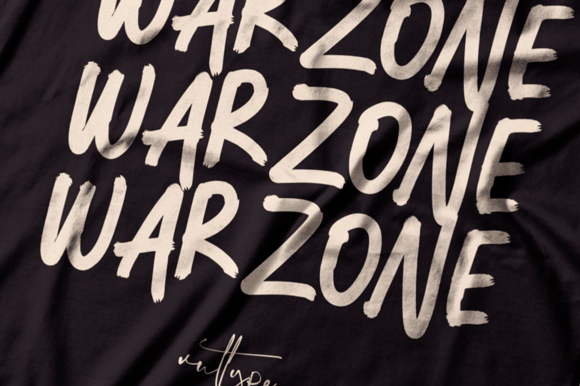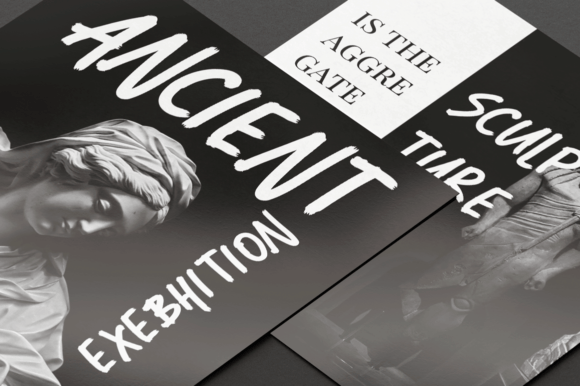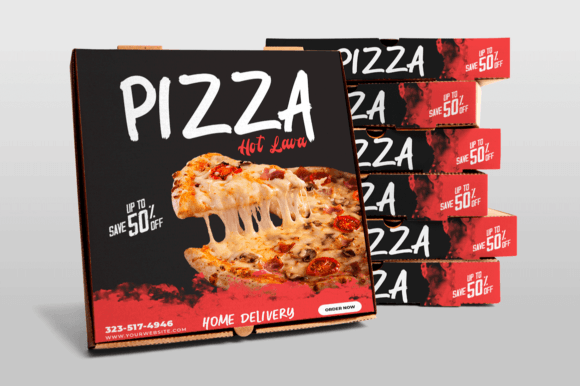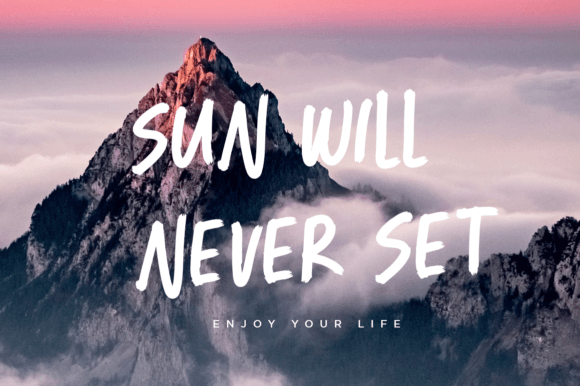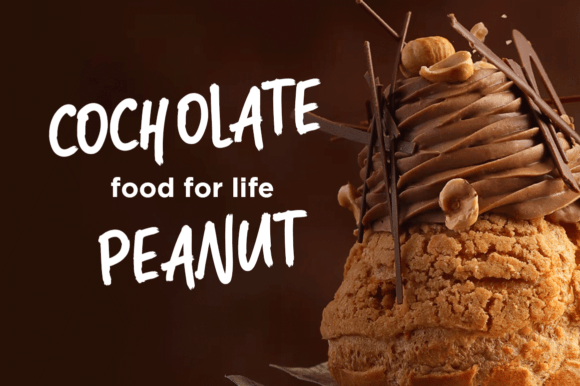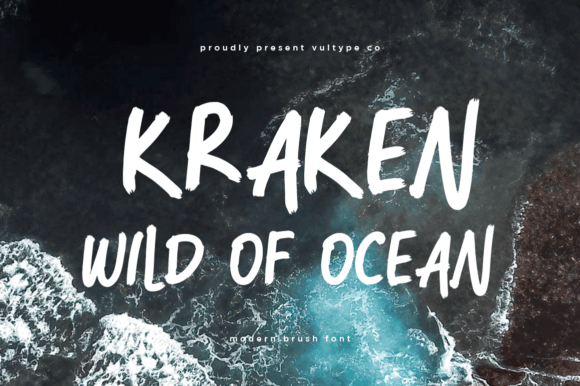
Introducing Dashbird Font: A Brush-Textured Masterpiece for Designers and Crafters
In the world of typography, fonts play a crucial role in conveying messages, expressing emotions, and creating visual identities. For designers and crafters, finding the perfect font can be a daunting task, especially when it comes to adding a personal touch to their projects. This is where Dashbird Font comes in – a stunning font made with brush texture that is sure to elevate your designs to the next level.
What is Dashbird Font?
Dashbird Font is a unique and creative font that mimics the look and feel of brush-penned text. With its sharp and accurate texture, this font is perfect for designers and crafters who want to add a personal and artistic touch to their projects. Whether you’re working on a logo, a poster, a card, or any other design project, Dashbird Font is sure to impress.
Key Features of Dashbird Font
- Brush Texture: Dashbird Font features a beautiful brush texture that gives it a unique and organic look. The texture is sharp and accurate, making it look like the text was written with a brush pen.
- High Level of Accuracy: One of the standout features of Dashbird Font is its high level of accuracy. The font is designed to mimic the imperfections of hand-written text, making it look like it was written by hand.
- Versatile: Dashbird Font is a versatile font that can be used for a wide range of design projects, from logos and posters to cards and invitations.
Who Can Benefit from Dashbird Font?
Dashbird Font is perfect for designers and crafters who want to add a personal touch to their projects. Here are some examples of who can benefit from using Dashbird Font:
- Graphic Designers: Graphic designers can use Dashbird Font to create stunning logos, posters, and other visual materials that require a personal touch.
- Crafters: Crafters can use Dashbird Font to create beautiful handmade cards, invitations, and other paper crafts.
- Small Business Owners: Small business owners can use Dashbird Font to create professional-looking branding materials, such as logos and business cards.
Tips for Using Dashbird Font
Here are some tips for using Dashbird Font:
- Use it Sparingly: Dashbird Font is a bold and expressive font, so use it sparingly to avoid overwhelming your design.
- Experiment with Colors: Experiment with different colors to find the one that works best with Dashbird Font.
- Pair it with Other Fonts: Pair Dashbird Font with other fonts to create a unique and interesting contrast.
Dashbird Font is a beautiful and versatile font that is perfect for designers and crafters who want to add a personal touch to their projects. With its sharp and accurate brush texture, this font is sure to elevate your designs to the next level. Whether you’re working on a logo, a poster, a card, or any other design project, Dashbird Font is a great choice.